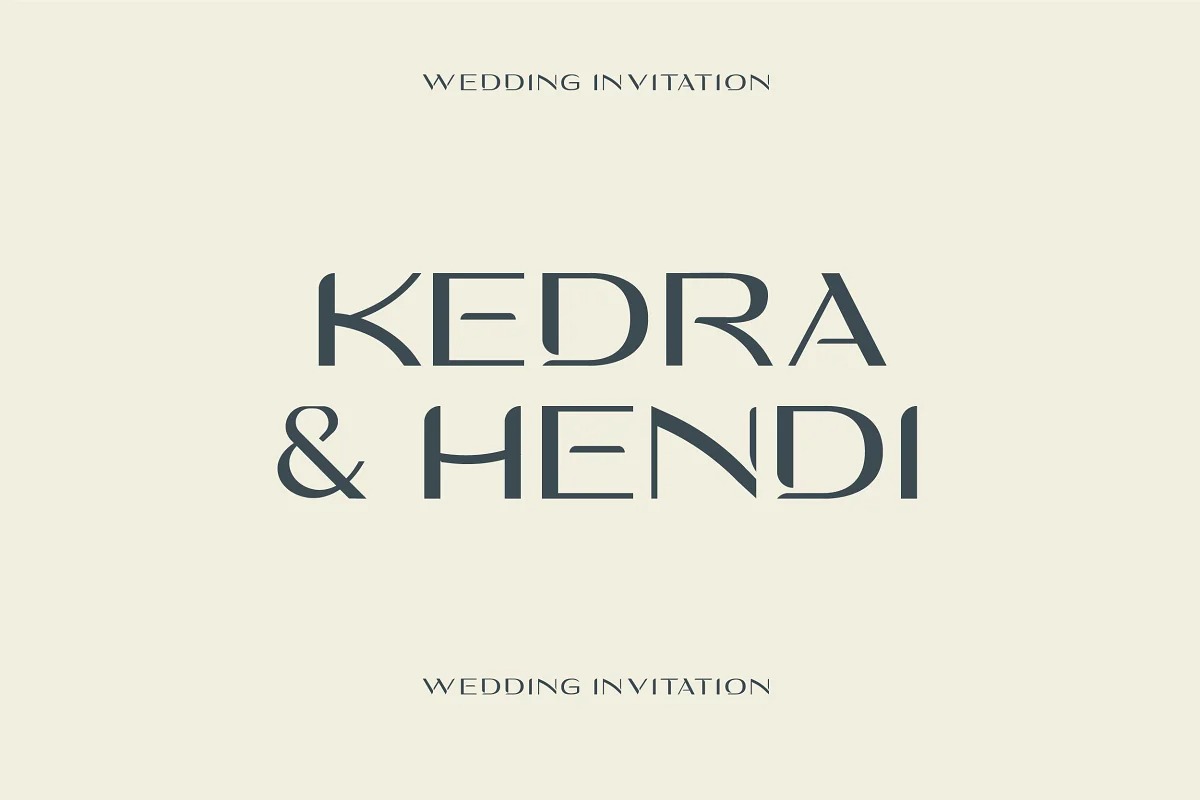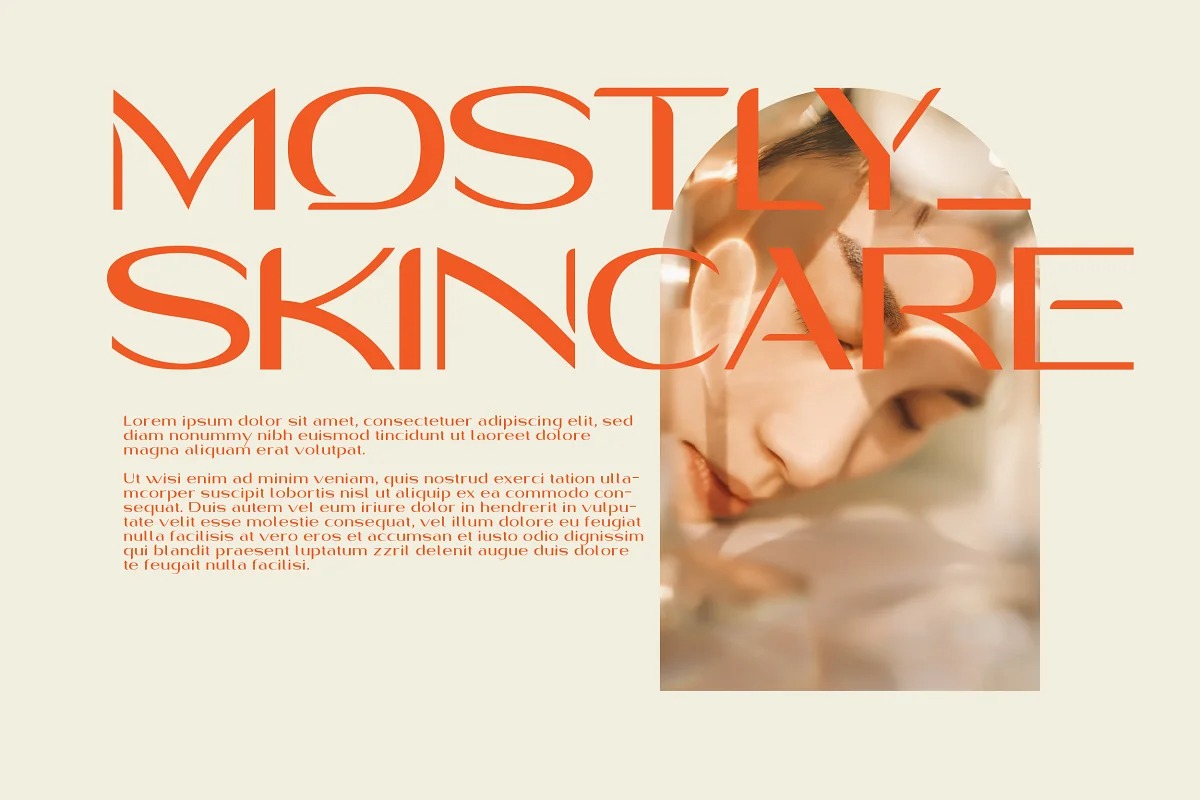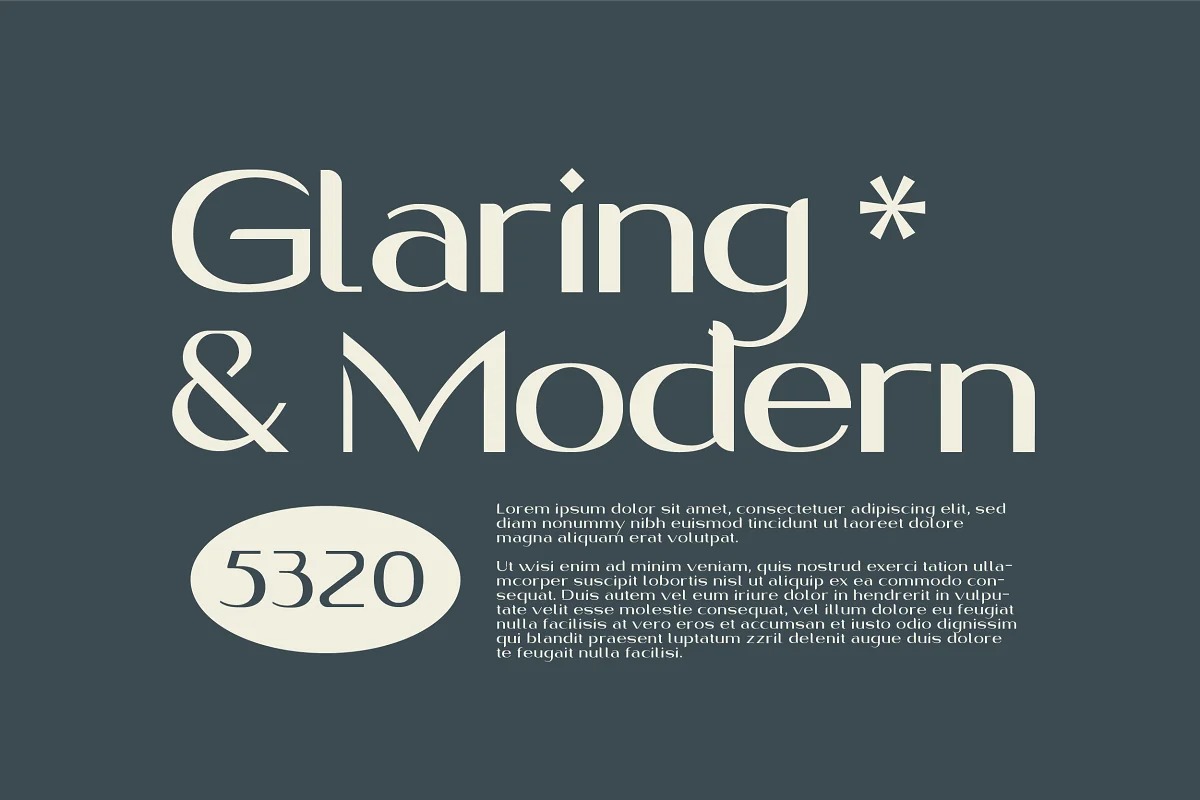
Romen Font
Romen Display Font is a modern, simple, and creative Typeface crafted & designed by Yukita Creative. This font is made with the perfect combination of each character. Romen is designed with a sleek design, perfect for logos, long text, and works well for short and large titles.